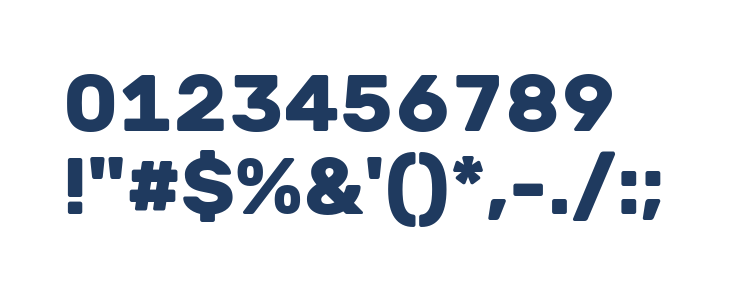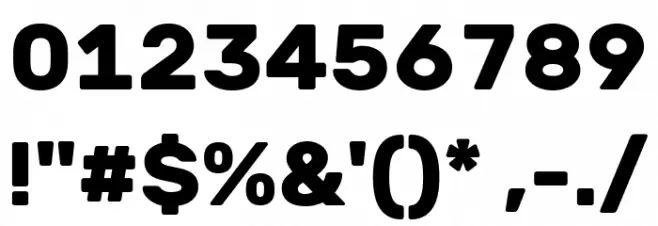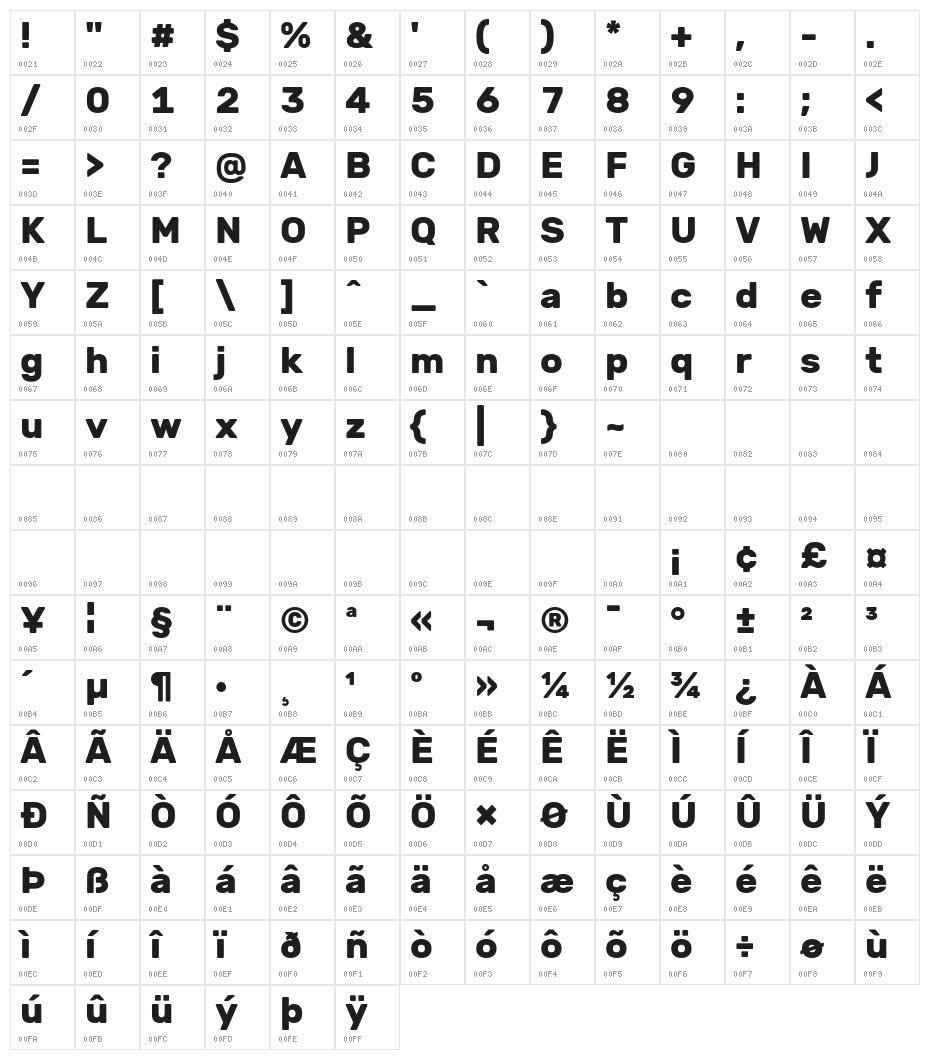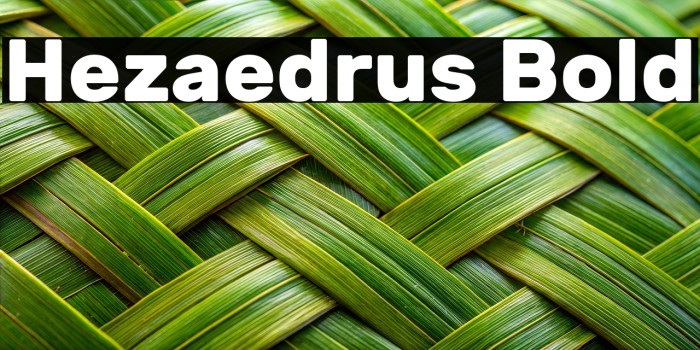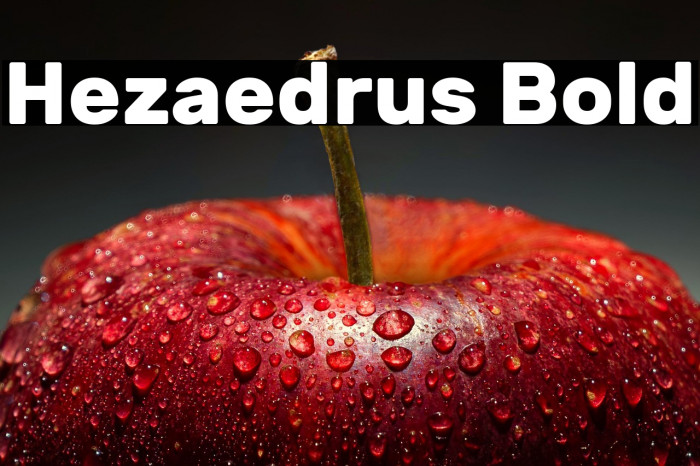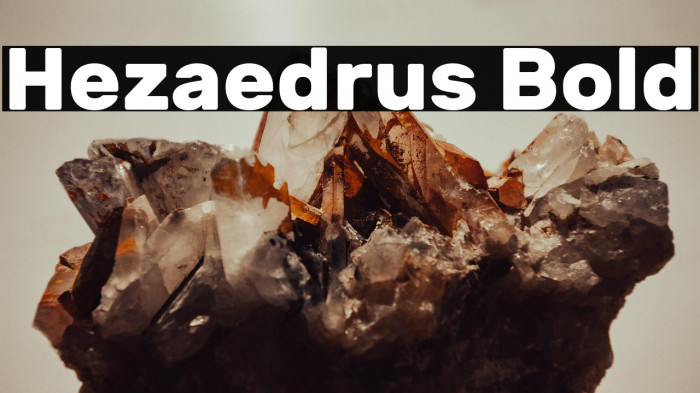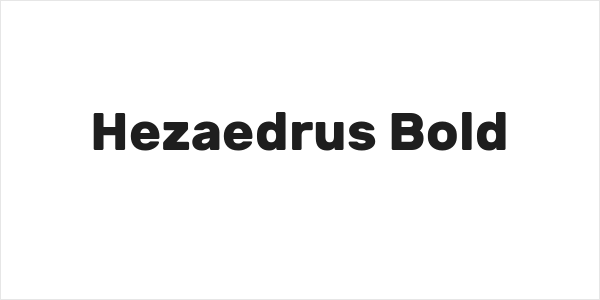
Hezaedrus Bold Font
Hezaedrus Bold Description
This typeface features bold, strong lines with a modern, sans-serif style. The characters are uniform in width, offering a clean and structured appearance. The uppercase and lowercase letters are well-balanced, providing a harmonious look. The numerals are clear and easily distinguishable, making them suitable for various applications. Special characters are included, maintaining the bold and robust aesthetic. This font is versatile, suitable for both digital and print media, and can be used effectively in branding, advertising, and headlines.